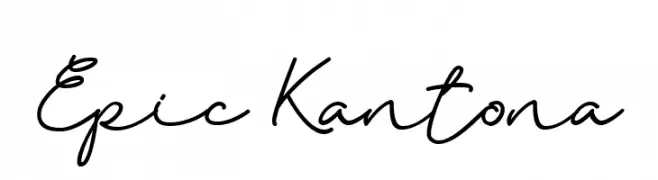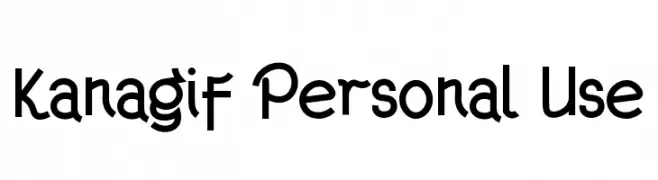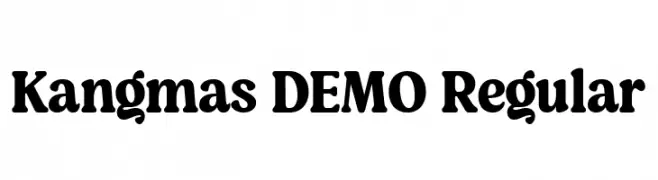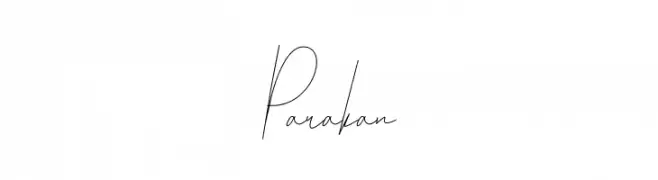
A delicate, elegant script font with a handwritten style.
A modern, geometric font with rounded edges and consistent stroke width.
A bold and dynamic font with elegant, slightly condensed uppercase letters and flowing lowercase characters.
A delicate, elegant handwritten font with thin, flowing strokes.
A cursive, handwritten-style font with smooth, flowing strokes.
A bold, rounded font with a playful yet professional style.
A playful and quirky font with rounded and angular elements, ideal for fun projects.
A bold, geometric font with circular and abstract shapes, ideal for modern designs.
A geometric, abstract font with bold circular forms and unique cut-out shapes.
A bold, abstract font with dynamic, italicized characters and geometric cutouts.